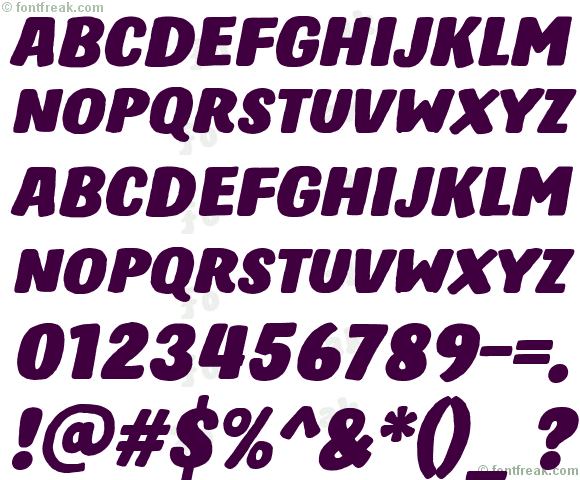
Hastro
Hastro Italic
Hastro is a striking display font designed by Situjuh Nazara, characterized by its bold and contemporary aesthetic. This font falls into the category of sans-serif, making it a versatile choice for various design applications. The visual characteristics of Hastro are marked by its strong stroke weight and minimal contrast, which lend the typeface a solid and impactful presence. The letters feature a clean and modern appearance, with generous spacing that enhances readability, making it suitable for both digital and print mediums.
Ideal for a range of creative projects, Hastro shines in use cases such as bold movie posters, dynamic branding for tech startups, engaging social media graphics, and eye-catching restaurant menus. Its modern flair makes it perfect for graphic designers looking to make a statement or small business owners who want to stand out in a crowded market. Content creators will also find Hastro to be an excellent choice for crafting inviting headlines or promotional materials.
What sets Hastro apart from other fonts is its ability to balance boldness with sophistication. Its clean lines and modern feel allow it to be versatile enough for both playful and serious projects, making it a valuable addition to any designer's toolkit. Whether you're creating a striking advertisement or a memorable logo, Hastro's distinctive style ensures that your message will be communicated with clarity and impact.